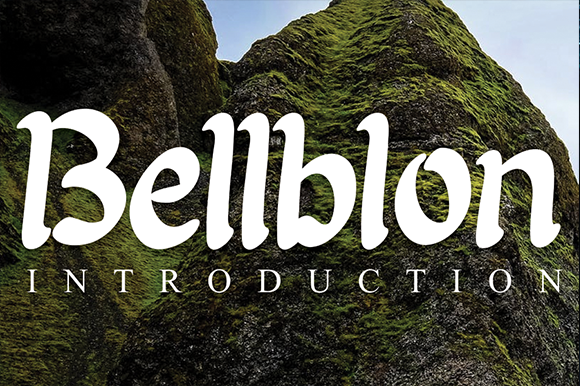
The Joy of Handwritten Typography: Discovering Bellblon Font
Have you ever found yourself in a creative zone, surrounded by scraps of paper, paint, and markers, with a burst of inspiration striking you at just the right moment? That’s exactly where I was when I stumbled upon the Bellblon Font – a delightful, handwritten font that perfectly captures the essence of a brush pen’s gentle strokes.
Bellblon Font is more than just a typeface; it’s a tool for designers to add a personal touch to their work. With its clean and quirky design, it’s the perfect fit for logos, branding, social media, and crafty DIY projects. Whether you’re a seasoned designer or a DIY enthusiast, Bellblon Font is sure to bring a smile to your face and a touch of whimsy to your creations.
Bellblon Font Key Features
- Unique Characteristics: The font features a unique blend of modern and vintage elements, with a distinctive rounded edge and subtle flair, making it suitable for creative and artistic projects.
Bellblon Font Review
Overall, I think Bellblon is an interesting font, but it’s not without its quirks. Let’s dive in and explore what works well and what doesn’t.
- The unique, whimsical design is perfect for projects that need a touch of personality. Bellblon adds a playful feel to any layout.
- The font’s versatility makes it suitable for a wide range of applications, from digital interfaces to print materials.
- The OpenType features allow for advanced typographic control, which is great for designers who want to get creative with their typography.
- The font’s irregularities can sometimes make it difficult to read, especially at smaller sizes. This might be a concern for projects where readability is paramount.
- The character set is limited, which could be a problem for designers who need to support multiple languages.
- The font’s OpenType features can be a bit finicky to work with, especially for designers who are new to advanced typography.
Bellblon is a great choice for designers who want to add some personality to their projects. While it has its limitations, the unique design and versatility make it a solid option for the right projects. Just be aware of the potential readability issues and character set limitations.
Tips for Getting the Most Out of Bellblon Font
For optimal results, use Bellblon Font for headings and titles to create a visually appealing contrast with body text.
Bellblon Font is suitable for:
- Business cards and letterheads.
- Brochures and flyers.
- Presentations and reports.
Alternatives to Bellblon Font
Playfair Display is a luxurious, high-end font suitable for formal events, luxury brands, or any project that demands elegance and sophistication. It has a more classic feel compared to Bellblon Font’s vintage, distressed look.
Use Playfair Display for wedding invitations, luxury product packaging, or any project that requires a touch of opulence.
Great Vibes is a beautiful, elegant script font perfect for creative projects, such as wedding invitations, greeting cards, or branding for creative agencies. Unlike Bellblon Font, Great Vibes has a more polished, refined look.
Use Great Vibes for projects that require a touch of sophistication and elegance, but with a more modern feel.